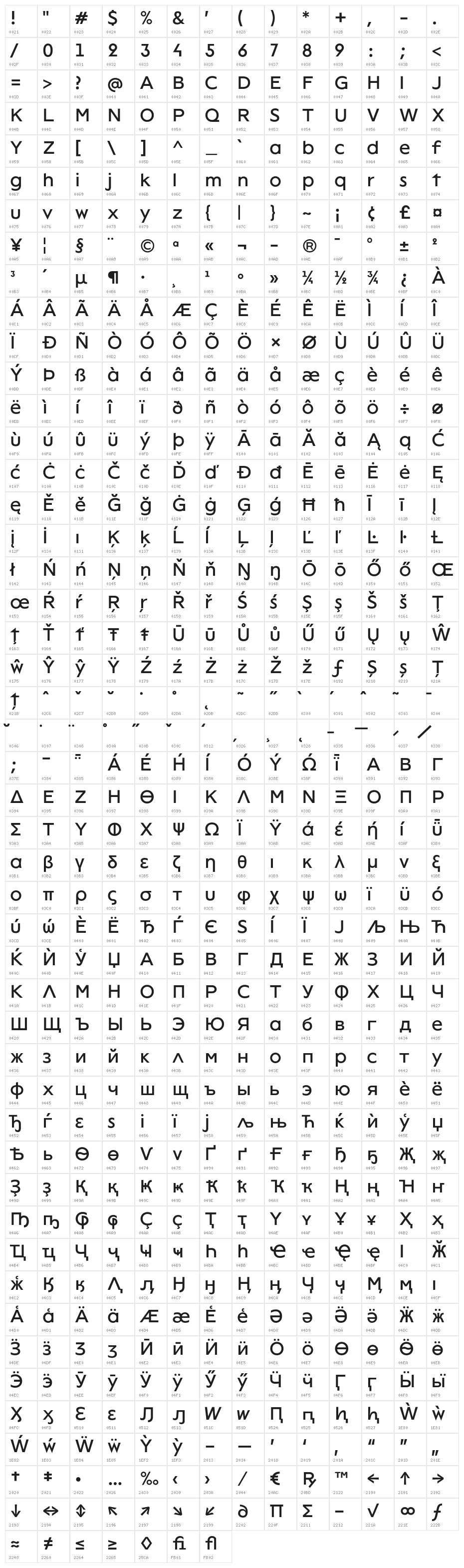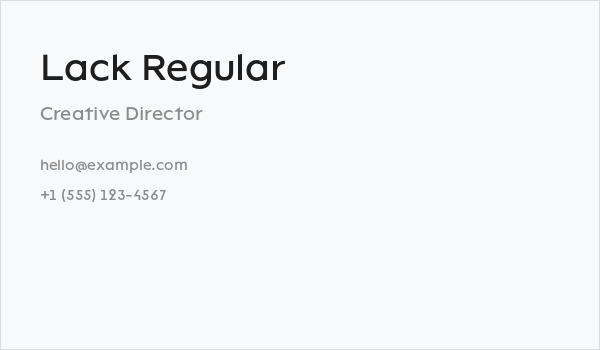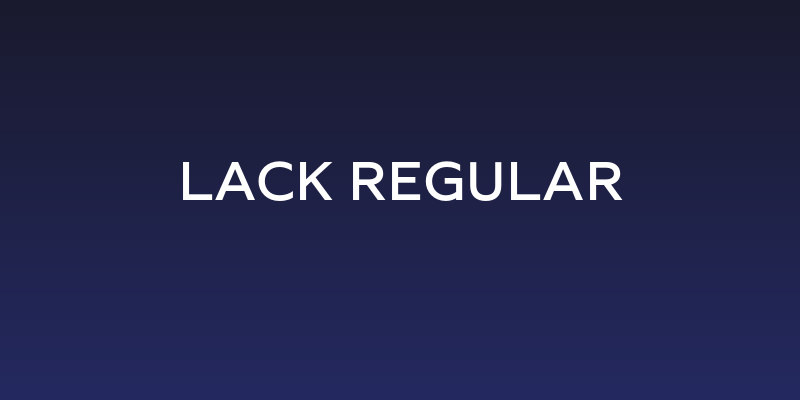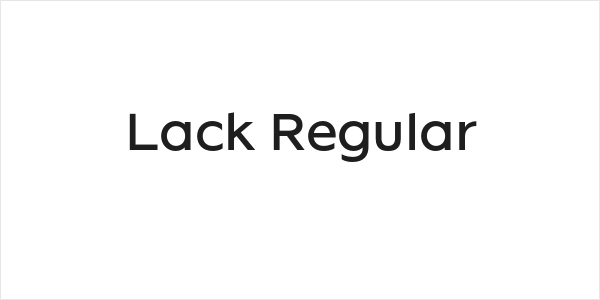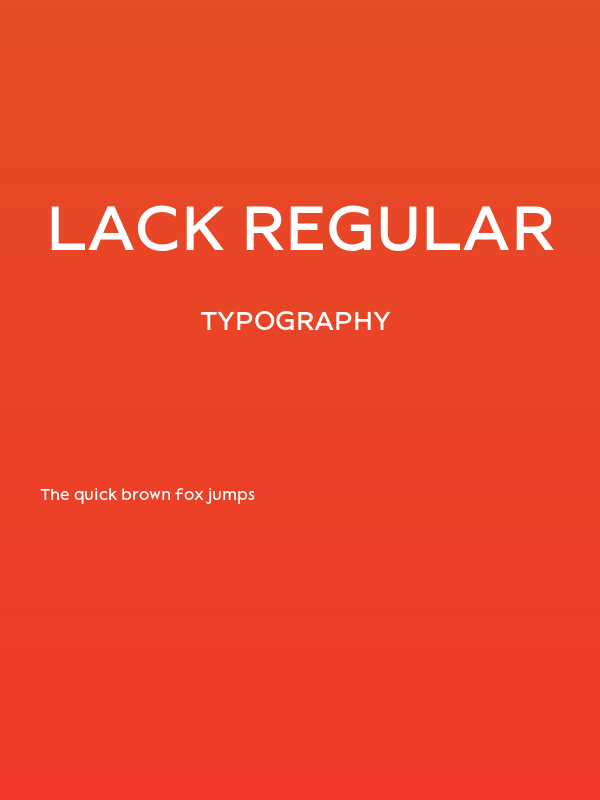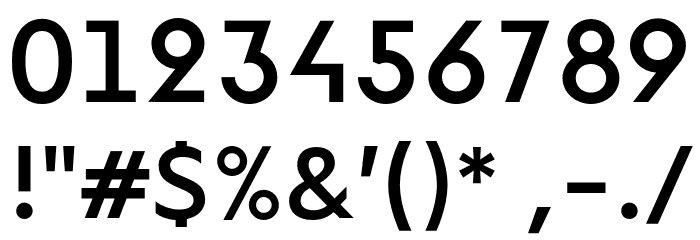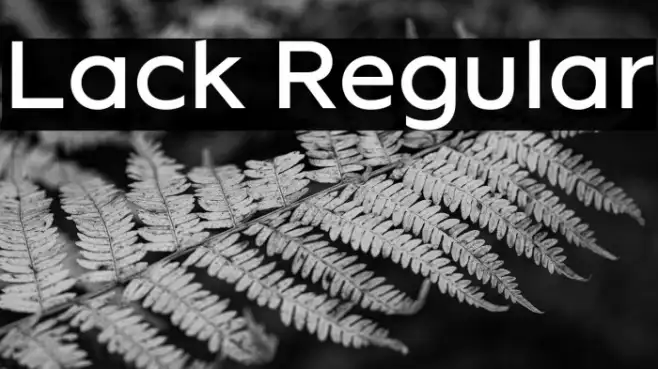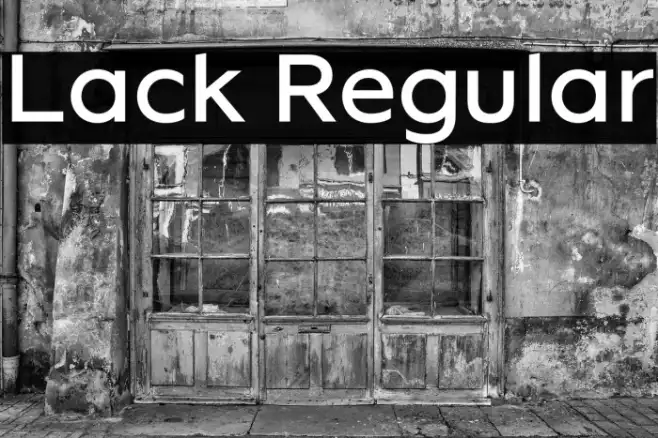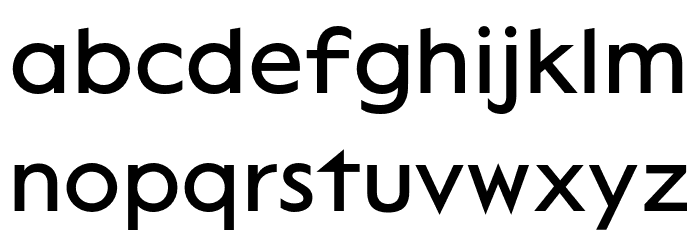
Lack Regular Font
Lack Regular Description
This font features a clean and modern sans-serif design, characterized by its geometric shapes and uniform stroke widths. The letters are well-proportioned, with a consistent height and width that create a harmonious appearance. The uppercase letters are bold and assertive, while the lowercase letters maintain a friendly and approachable feel. The numerals are clear and easy to read, making them suitable for various applications. Special characters are designed with the same attention to detail, ensuring they blend seamlessly with the rest of the typeface.